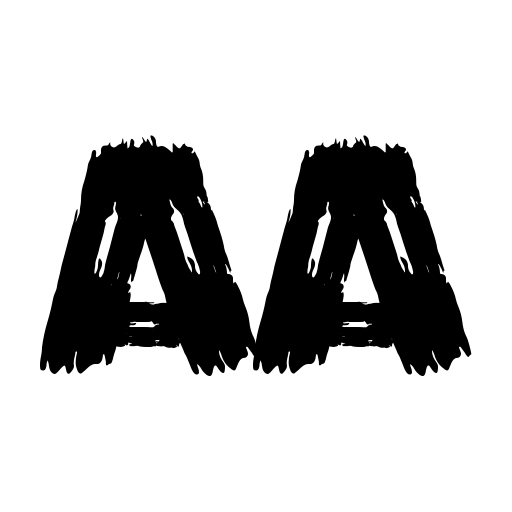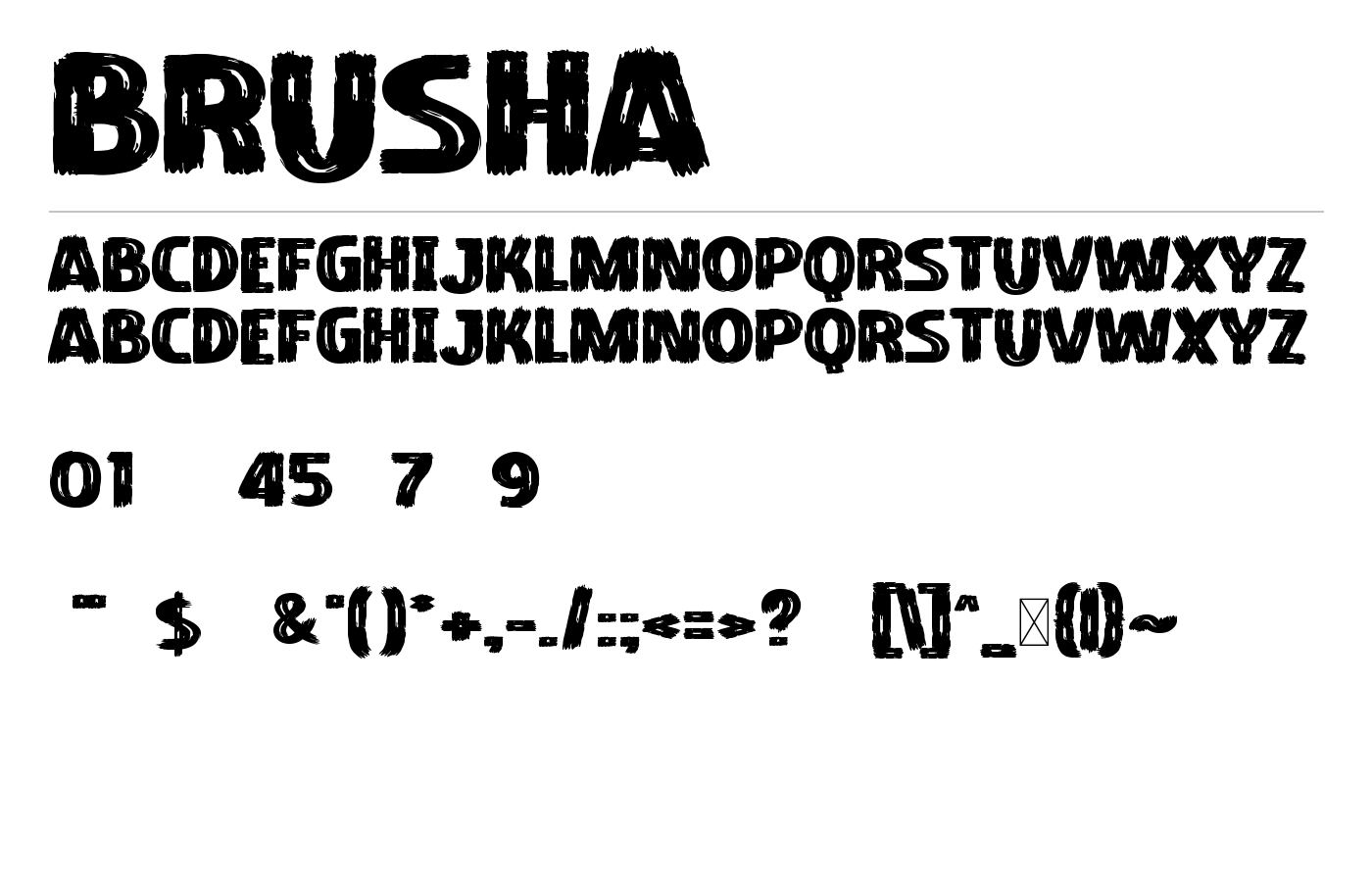
Brusha is a bold, uppercase sans serif font with a distinctive rough, textured brushstroke style that creates an expressive and energetic feel. Its irregular edges and strong weight make it perfect for eye-catching headlines, posters, and branding that aim to convey creativity, dynamism, and a handcrafted touch. This font works well for projects seeking a bold visual impact with an artistic and informal vibe.
Brusha Font
About Brusha Font